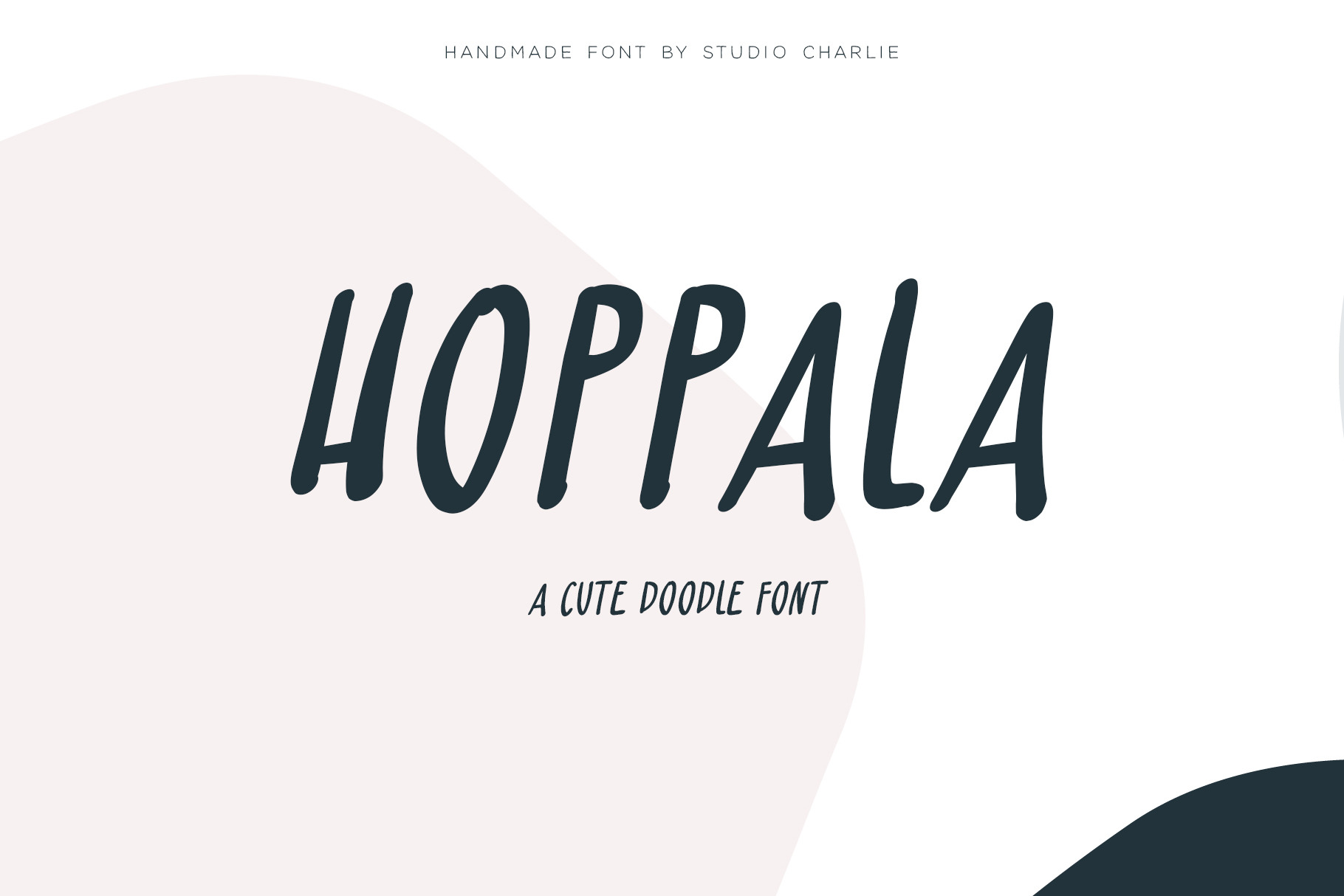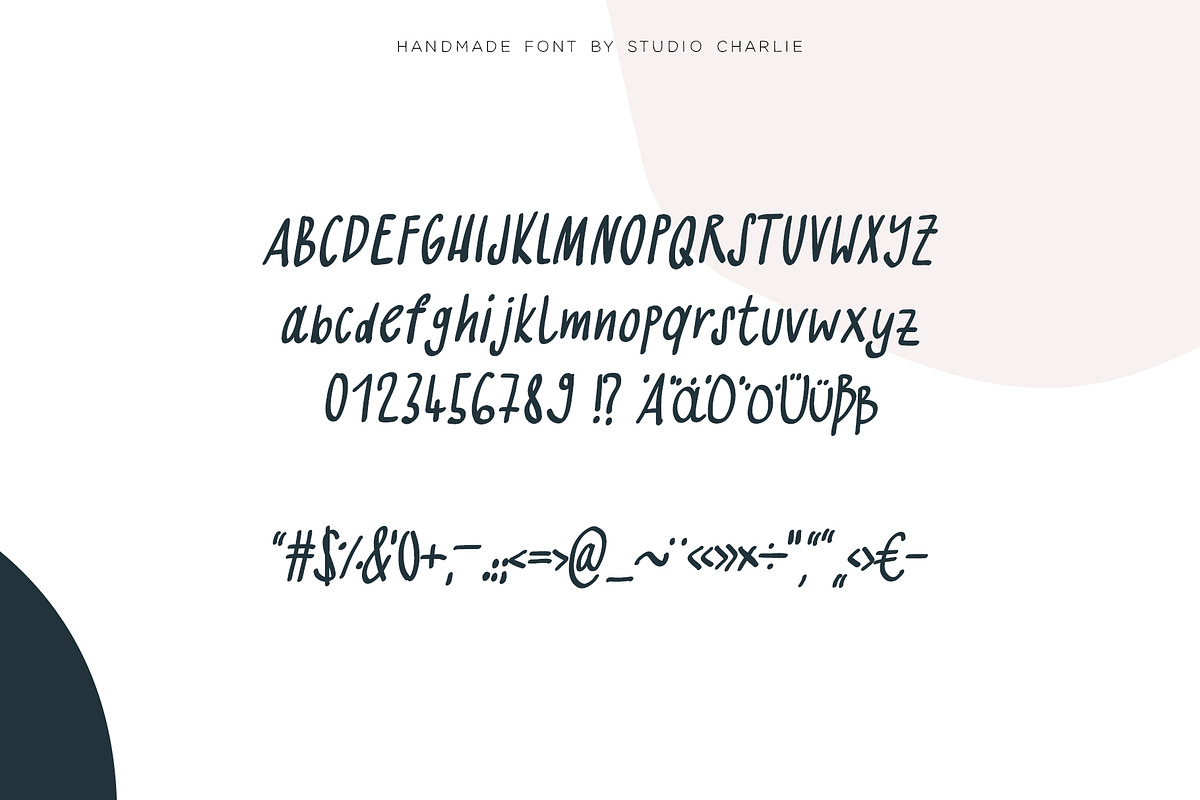
Hoppala - A Cute Doodle Font
Hoopla is a clean doodle font that supports English and German characters. The OTF font file comes with a full alphabet of both lower- and uppcase letters as well as numbers and punctuation. Some extra glyphs have been added for fun writing.
This font is a original handwriting of ours we are using daily.